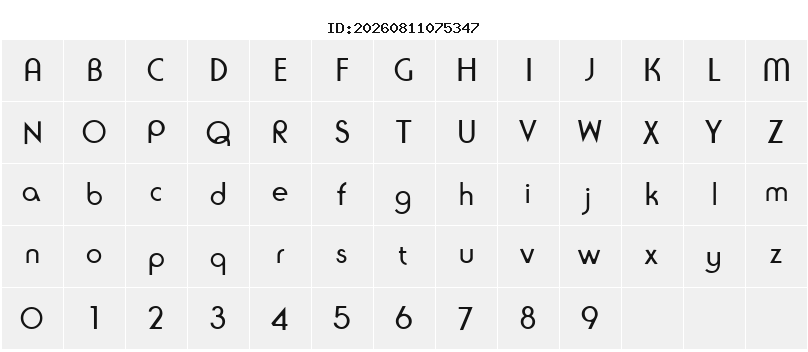
• Font Name: Rondalo
• Font ID: Altsys Fontographer 3.5 Rondalo Regular
• Full Font Name: Rondalo Regular
• Version: Altsys Fontographer 3.5 2/9/93
• PostScript Name: Rondalo
• Character Count: 211
About Rondalo.ttf
Rondalo.ttf is a modern, elegant sans-serif font designed for ultimate readability and visual harmony. Perfect for branding, headlines, web design, and print materials.